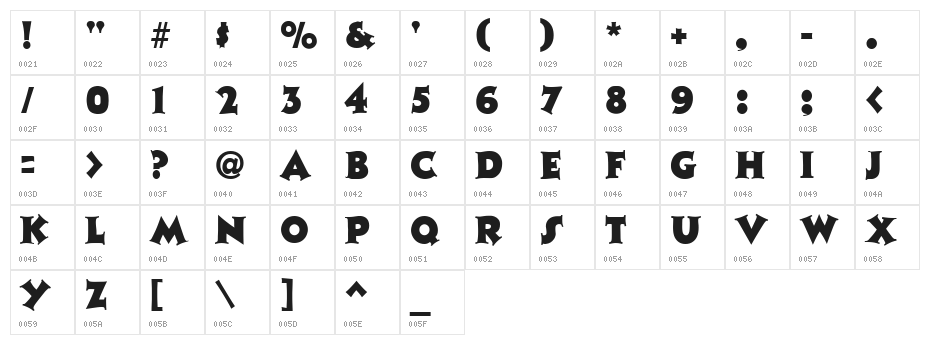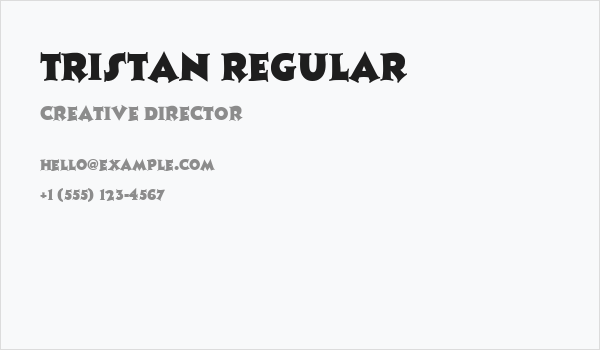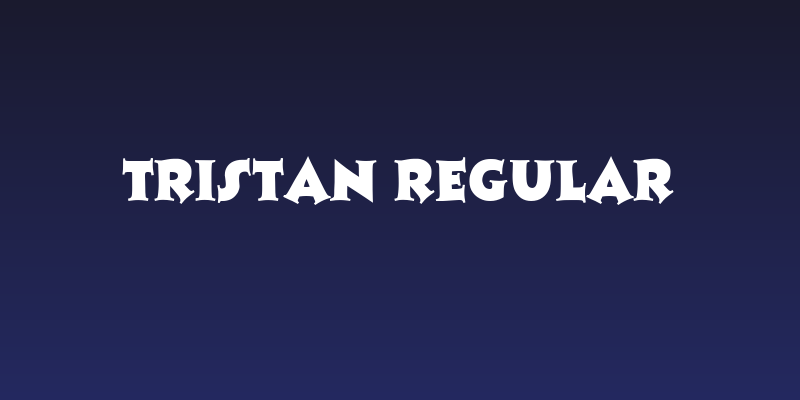
Tristan Regular Font
Tristan Regular Description
This font features a bold and dramatic style with sharp, angular serifs and a strong presence. The characters are designed with a unique flair, incorporating pointed edges and a slightly medieval aesthetic. The uppercase and lowercase letters maintain a consistent weight, giving the font a cohesive look. The numerals are equally bold, ensuring readability and impact. Special characters are stylized to match the overall theme, making this font suitable for projects that require a distinctive and eye-catching appearance.
| Proposed Projects | Ideal for fantasy-themed designs, book covers, posters, and branding that requires a strong, dramatic typeface. |